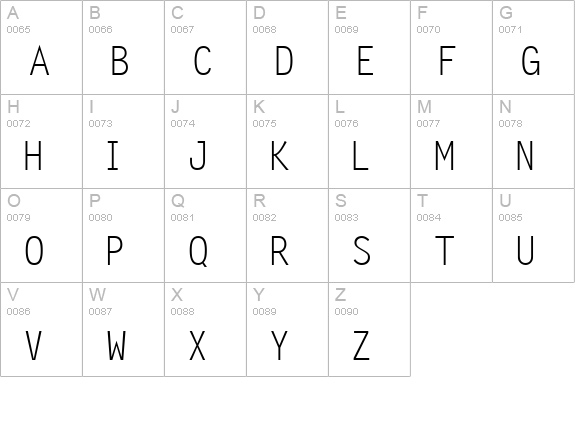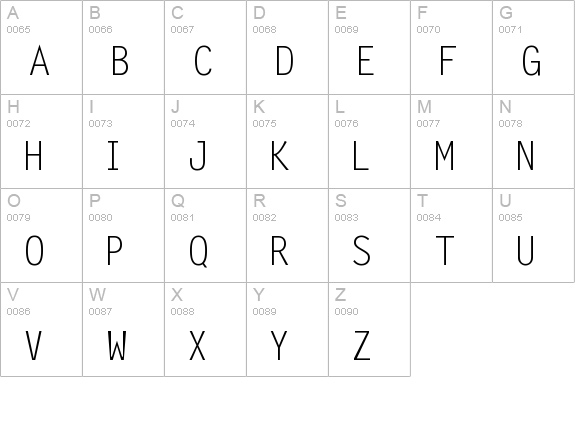
Microfine SSi Normal is the standard, neutral variant in the Microfine typeface family \xE2\x80\x94 well suited to general body text, paragraphs, and standard typographic work.
Microfine SSi Normal font is a sleek and modern typeface designed for various design projects. Its clean lines and sharp edges make it perfect for both headlines and body text. This versatile font is ideal for use in magazines, advertisements, websites, and more. The Microfine SSi Normal font is available for free download at FontsMarket.com. Whether you are working on a personal or commercial project, this font is a great choice to add a professional touch to your designs. With its elegant yet bold appearance, Microfine SSi Normal font will surely make your text stand out and leave a lasting impression on your audience.